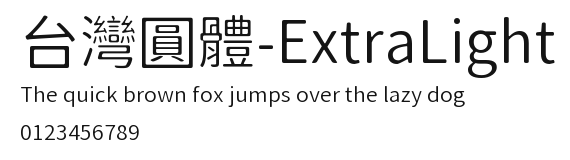
台灣圓體-ExtraLight Preview
• Font Name: 台灣圓體-ExtraLight
• Font Style: ExtraLight
• Full Font Name: 台灣圓體-ExtraLight
• PostScript Name: TaiwanPearl-ExtraLight
About 台灣圓體-ExtraLight.ttf
台灣圓體-ExtraLight.ttf is a modern, elegant sans-serif font designed for ultimate readability and visual harmony. Perfect for branding, headlines, web design, and print materials.